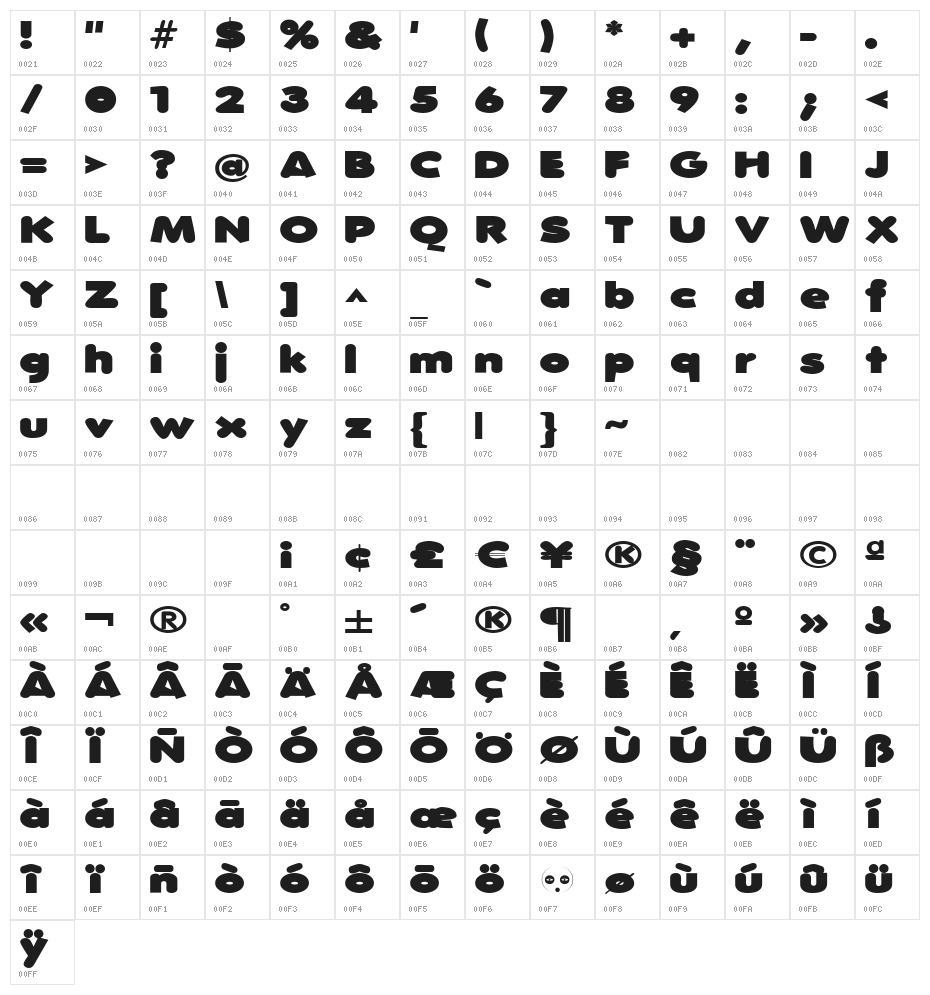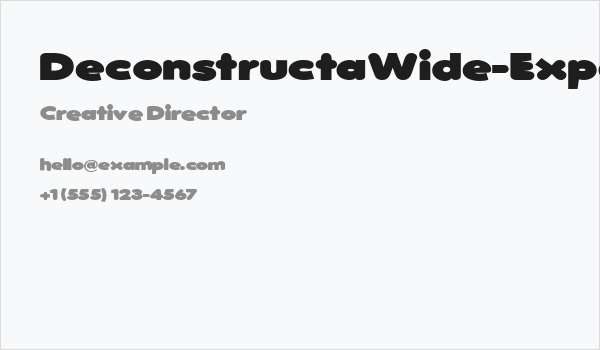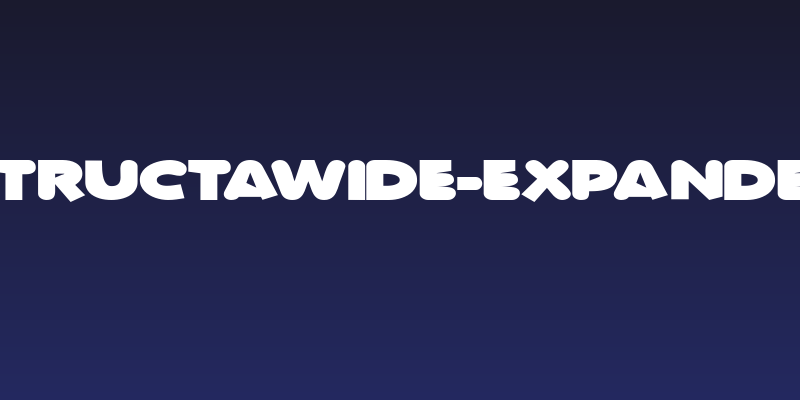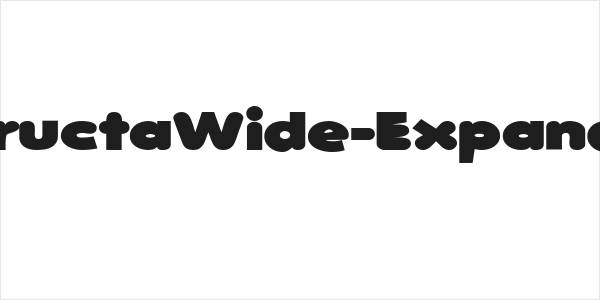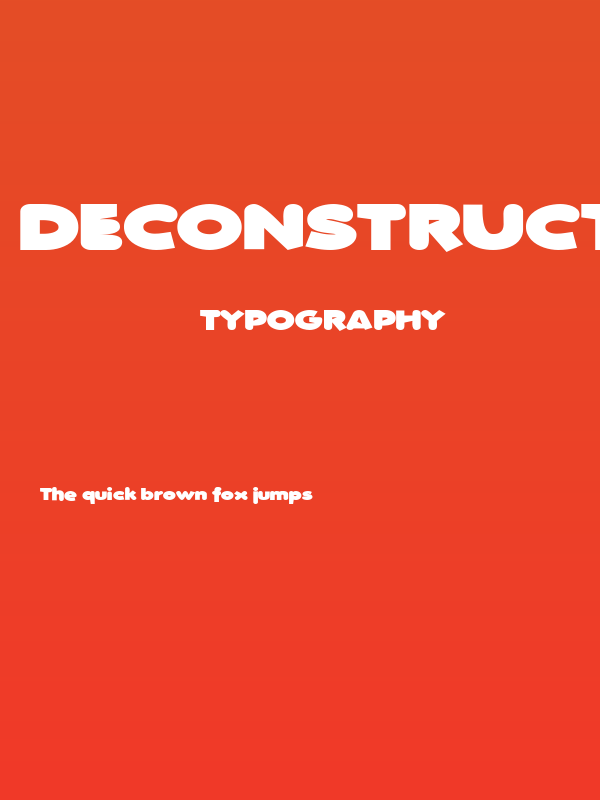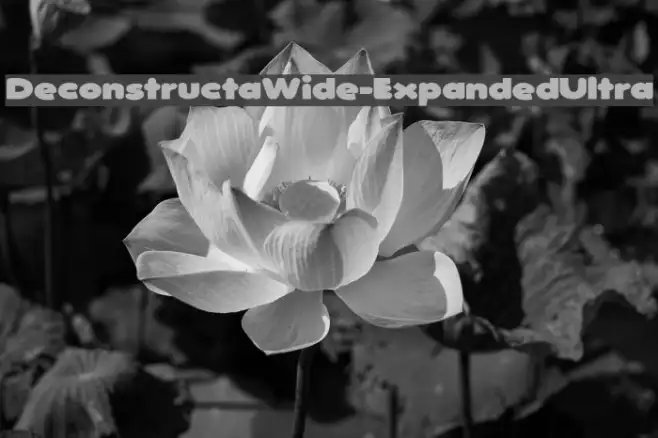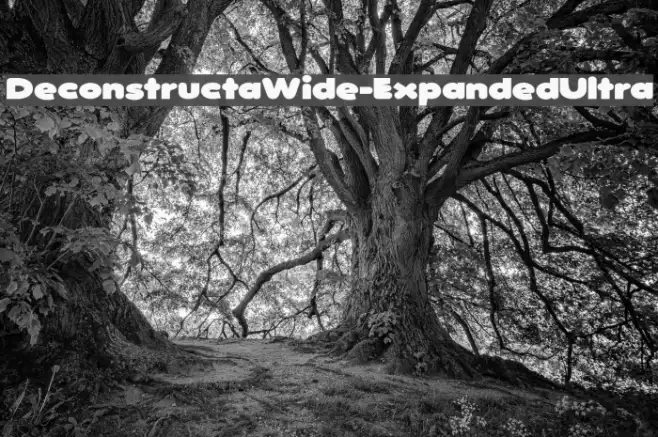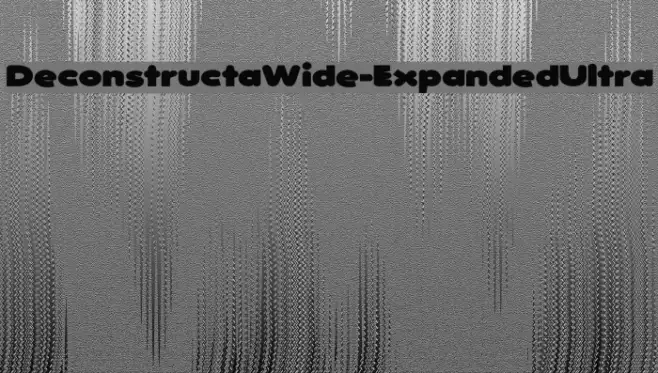
DeconstructaWide-ExpandedUltra Font
DeconstructaWide-ExpandedUltra Description
This font features a bold and playful design with exaggerated, rounded forms and a distinctly wide stance. The characters are heavily weighted, giving them a strong presence, while the expanded width adds a unique, eye-catching quality. The strokes are consistent in thickness, contributing to a uniform appearance across all characters. The font's style is modern and slightly whimsical, making it suitable for projects that require a fun and engaging aesthetic. Its boldness and expanded form make it ideal for grabbing attention in headlines or logos.
| Proposed Projects | Ideal for children's books, playful branding, eye-catching headlines, and creative posters. |